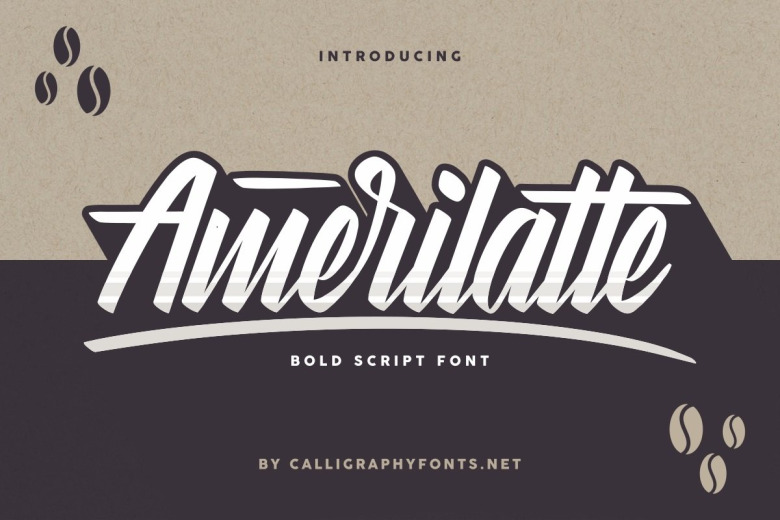
Amerilatte Bold Script Font
Amerilatte Script Font is a bold and stylish handwritten font. It looks stunning on wedding invitations, thank you cards, quotes, greeting cards, logos, business cards and every other design which needs a handwritten touch.